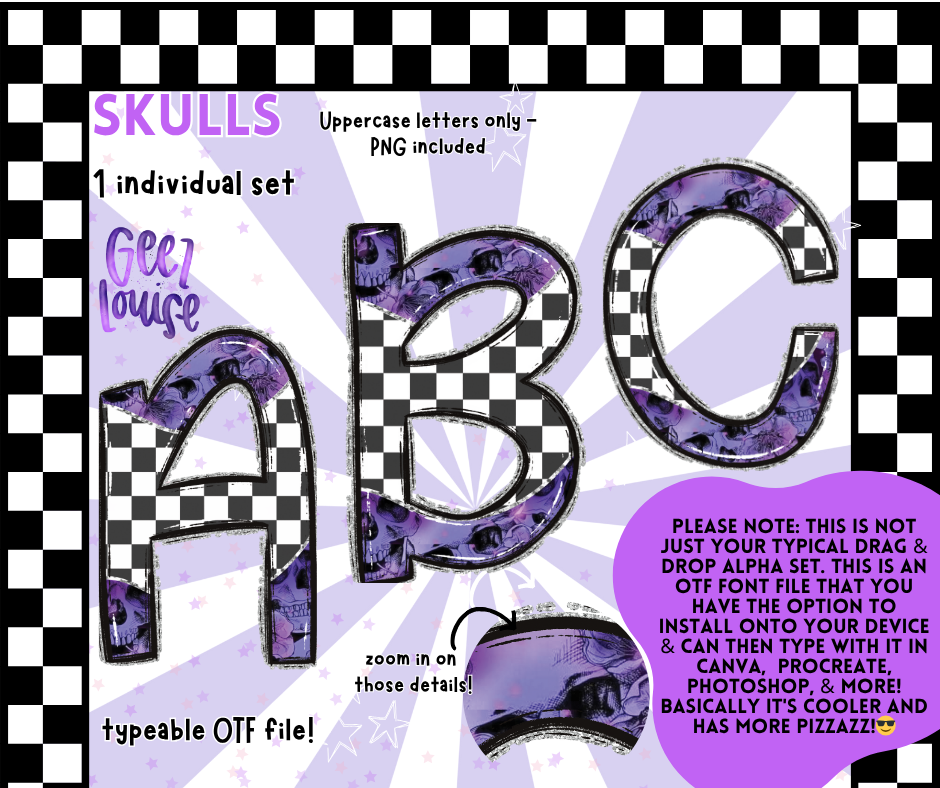
Skulls OTF Font + PNG Alpha Set
💀 SKULLS – Typeable OTF Font with PNGs
Loud. Spooky. Unapologetically extra. SKULLS is a full uppercase font dripping in black-and-white checkerboard chaos and purple skulls. It’s not just an alpha set—it’s a typeable OTF file, ready to haunt your headlines and glam up your graphics.
Full uppercase alphabet (A–Z)
🔮 Why It Slaps:
SKULLS is built for creators who want their text to scream. Whether you’re designing merch, zines, social posts, or digital spells, this font adds instant edge and eerie charm. It’s installable, editable, and totally punk.
For the goths, the weirdos, the maximalists. SKULLS is your new favorite scream queen.